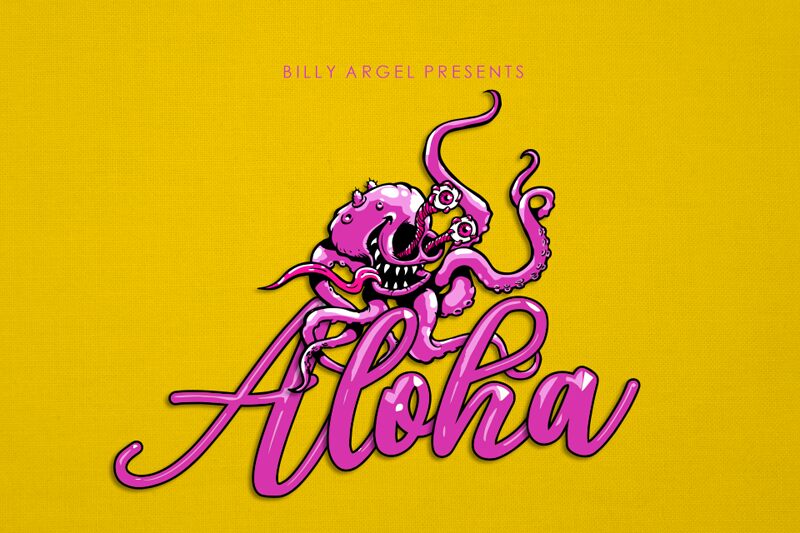
Aloha Octopus, a captivating calligraphy font by Billy Argel Fonts, adds an enchanting touch to any project. With its graceful strokes and elegant curves, this font is perfect for wedding invitations, love letters, and romantic poetry. Its intricate details make it suitable for creating stunning logos and branding materials that demand sophistication. Whether you're designing a tropical-themed website or crafting whimsical children's book illustrations, Aloha Octopus brings a playful yet refined feel to your work. Embrace the unique charm of this font and let your imagination swim with creativity!
SVG color font
Aloha Octopus Personal Use